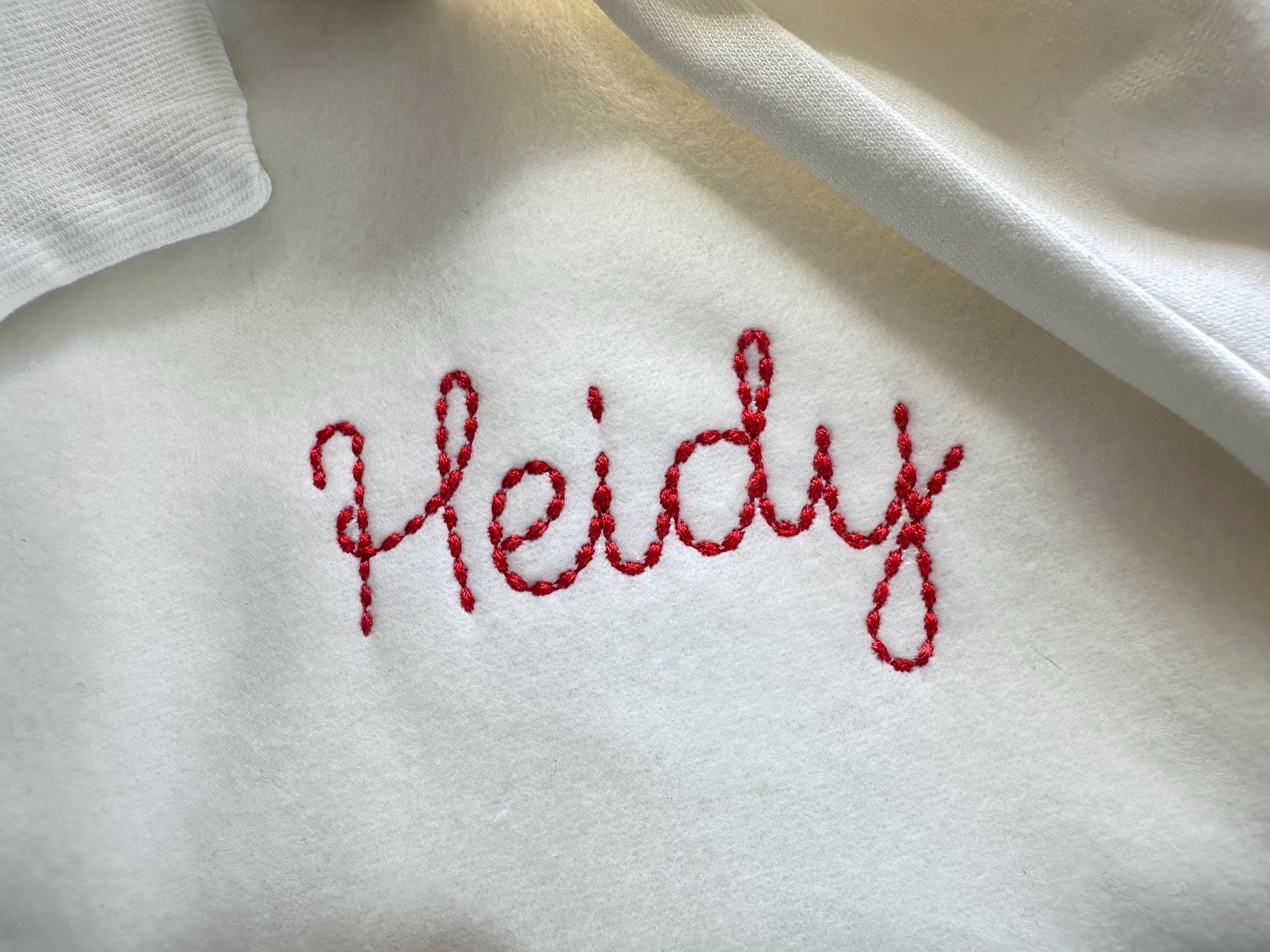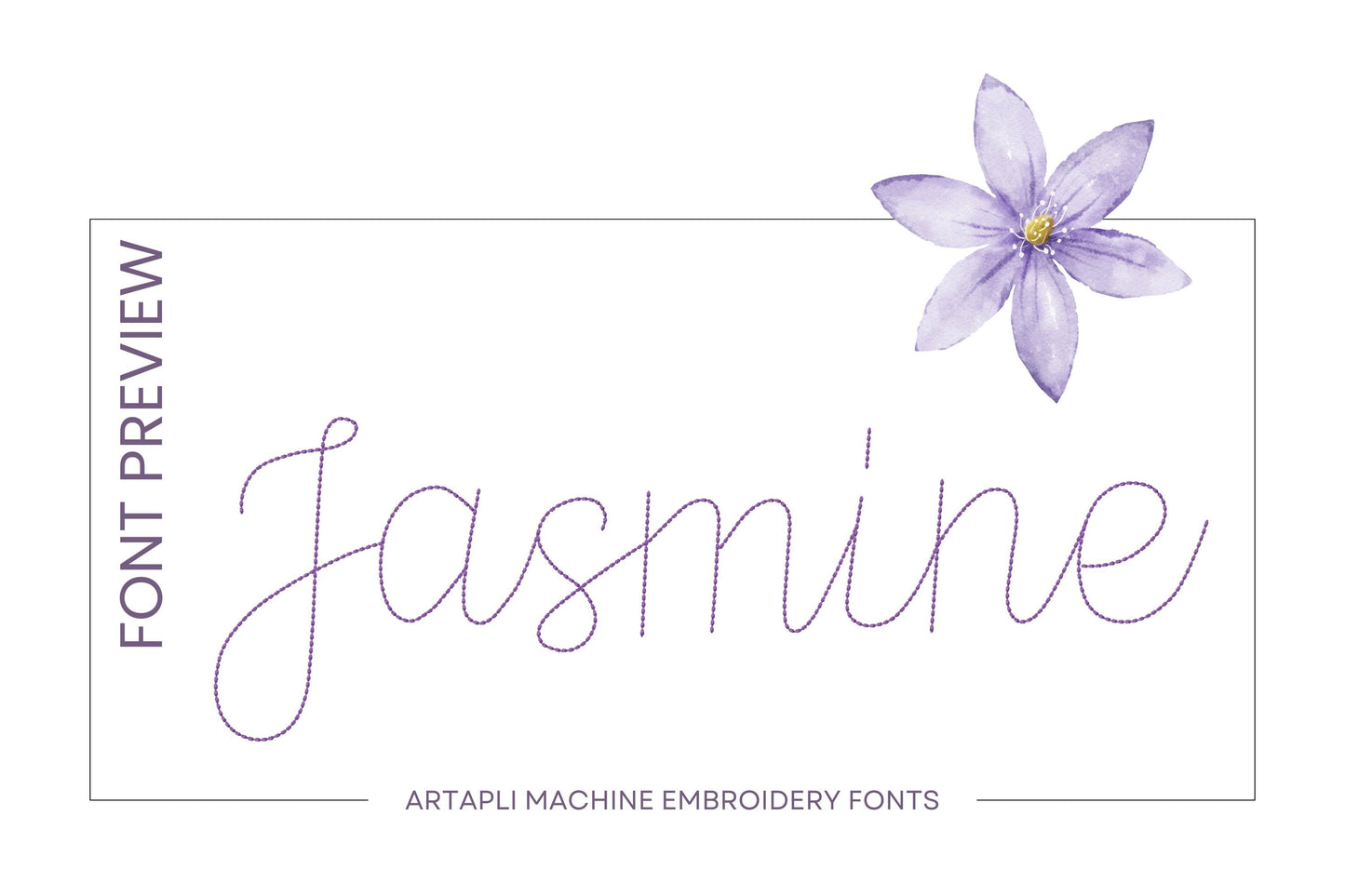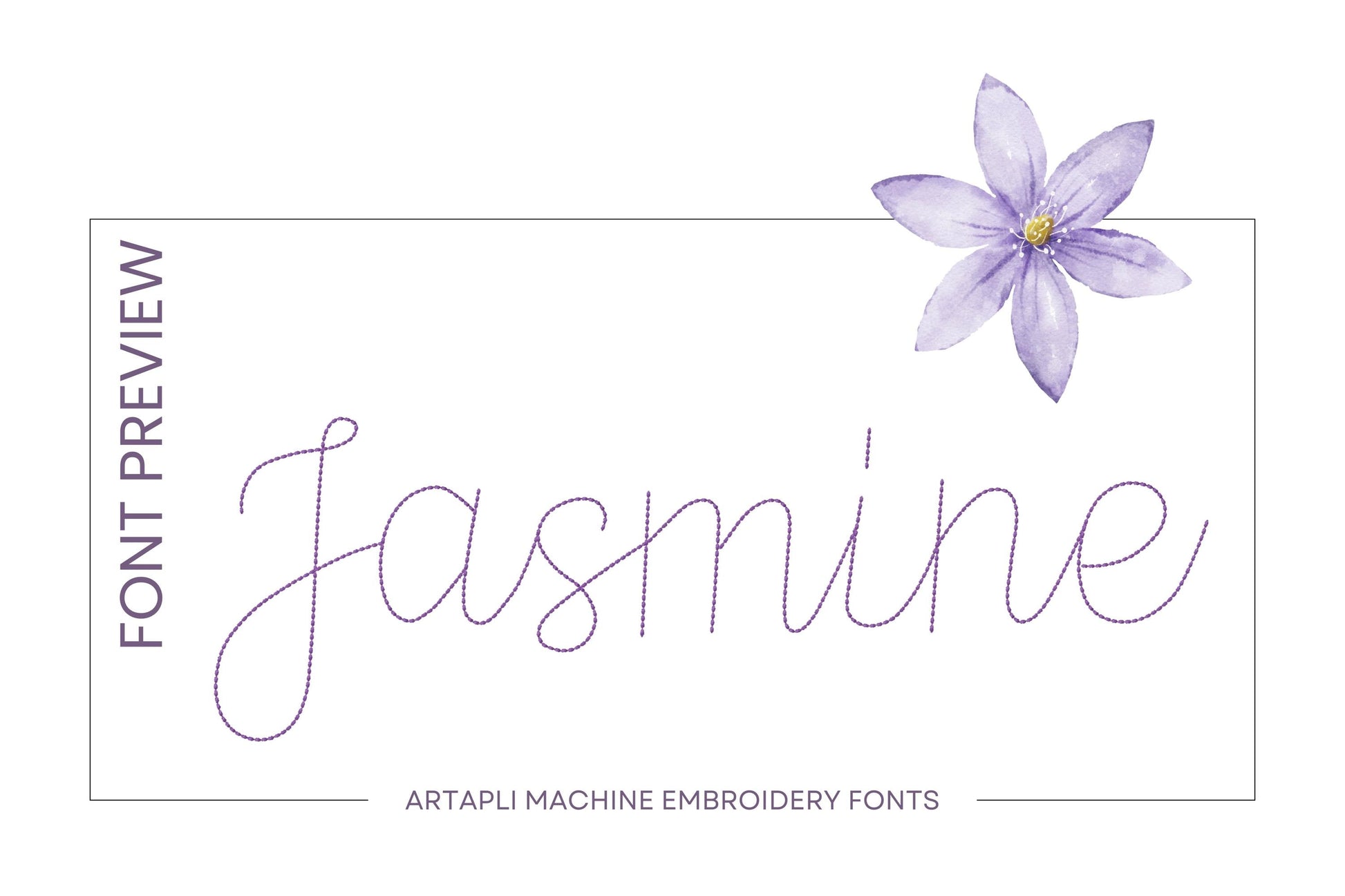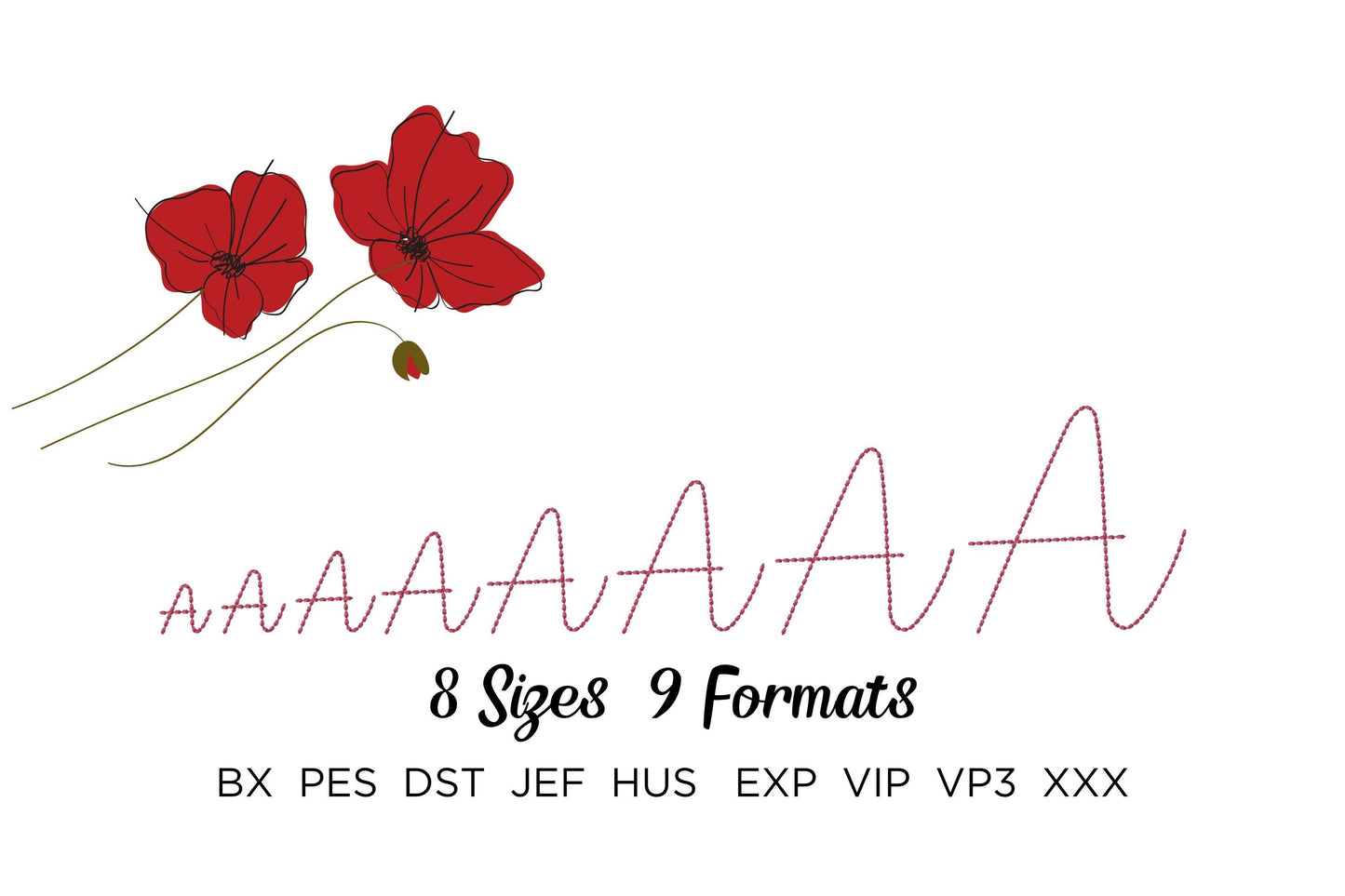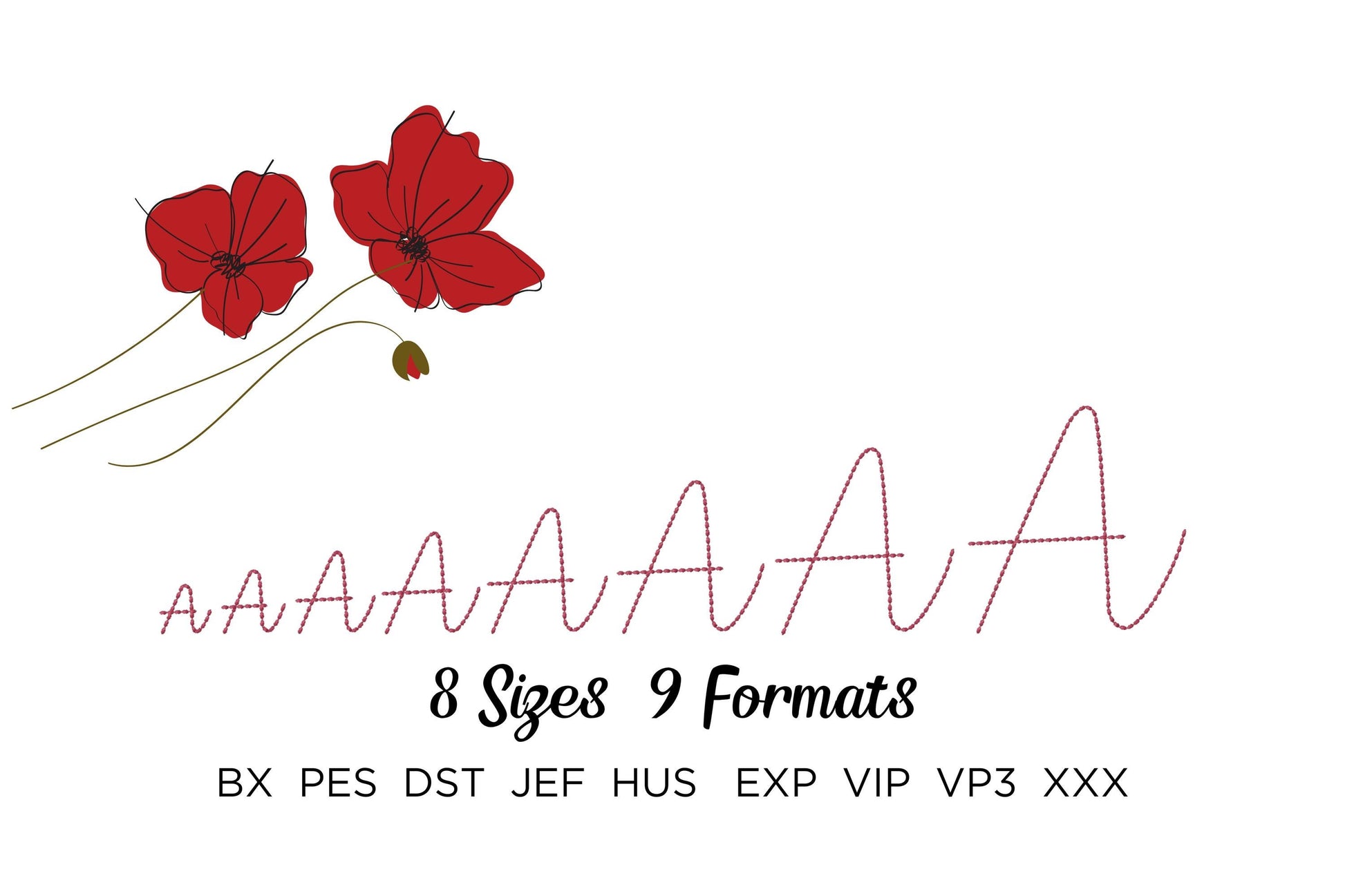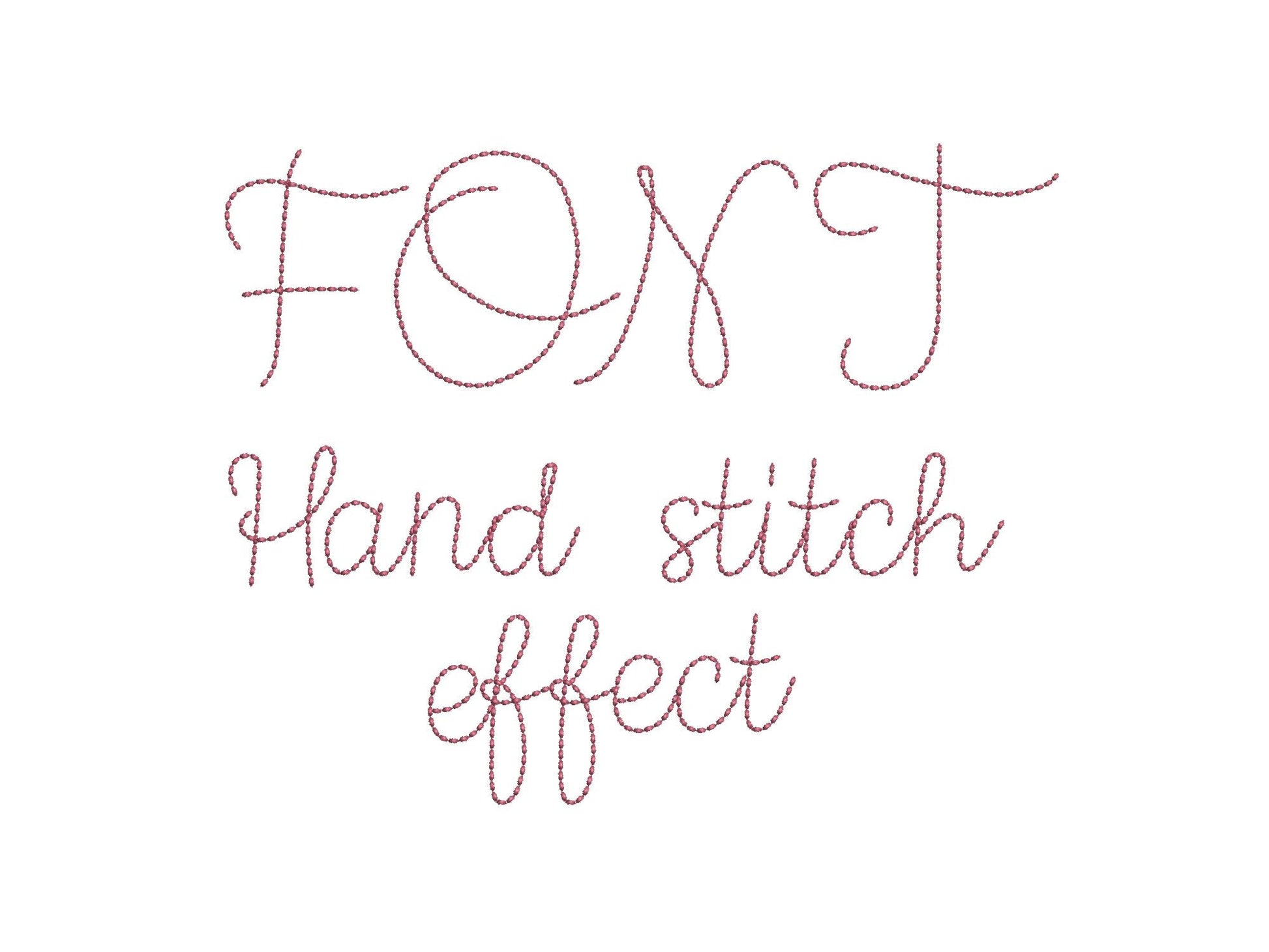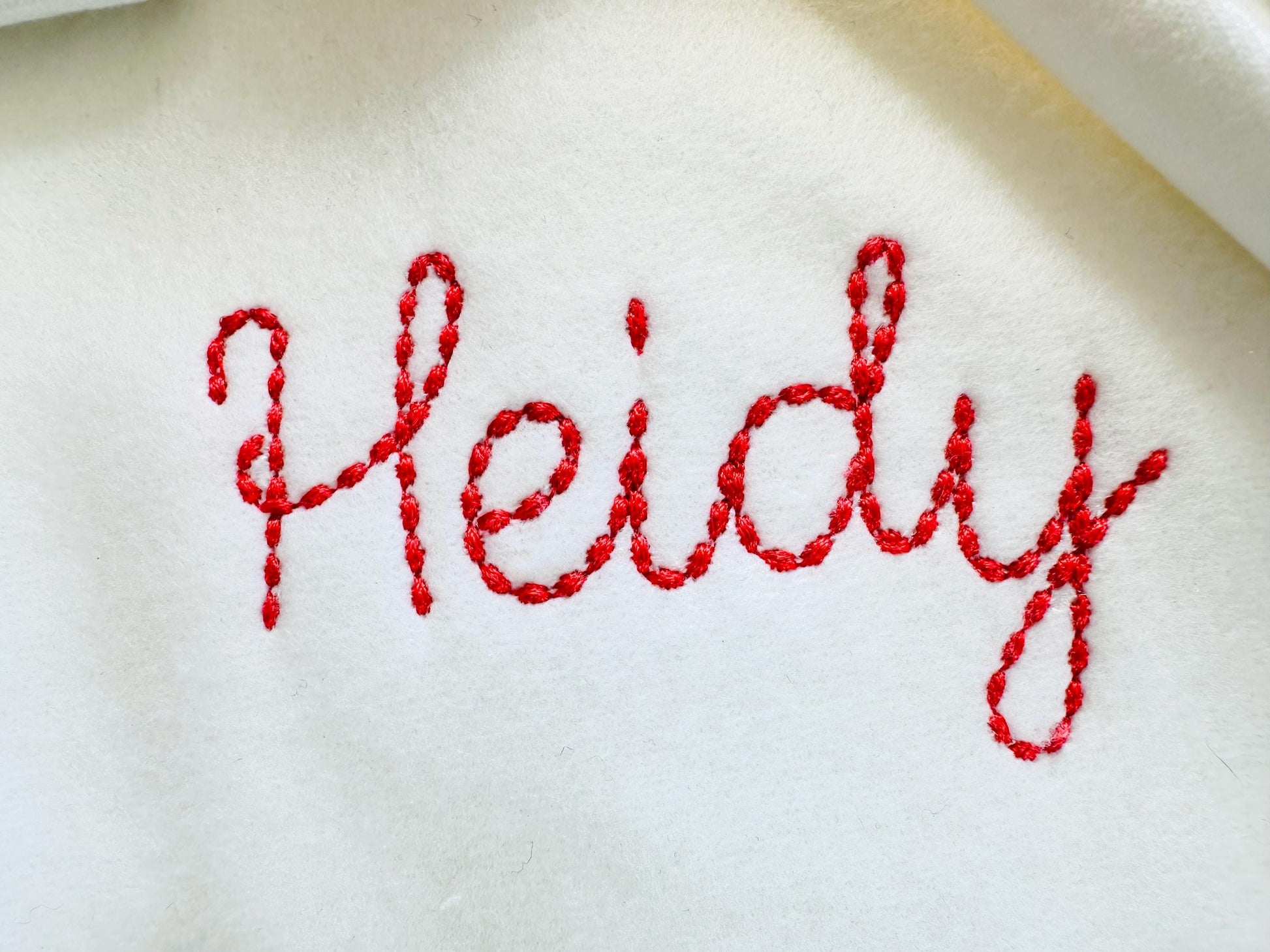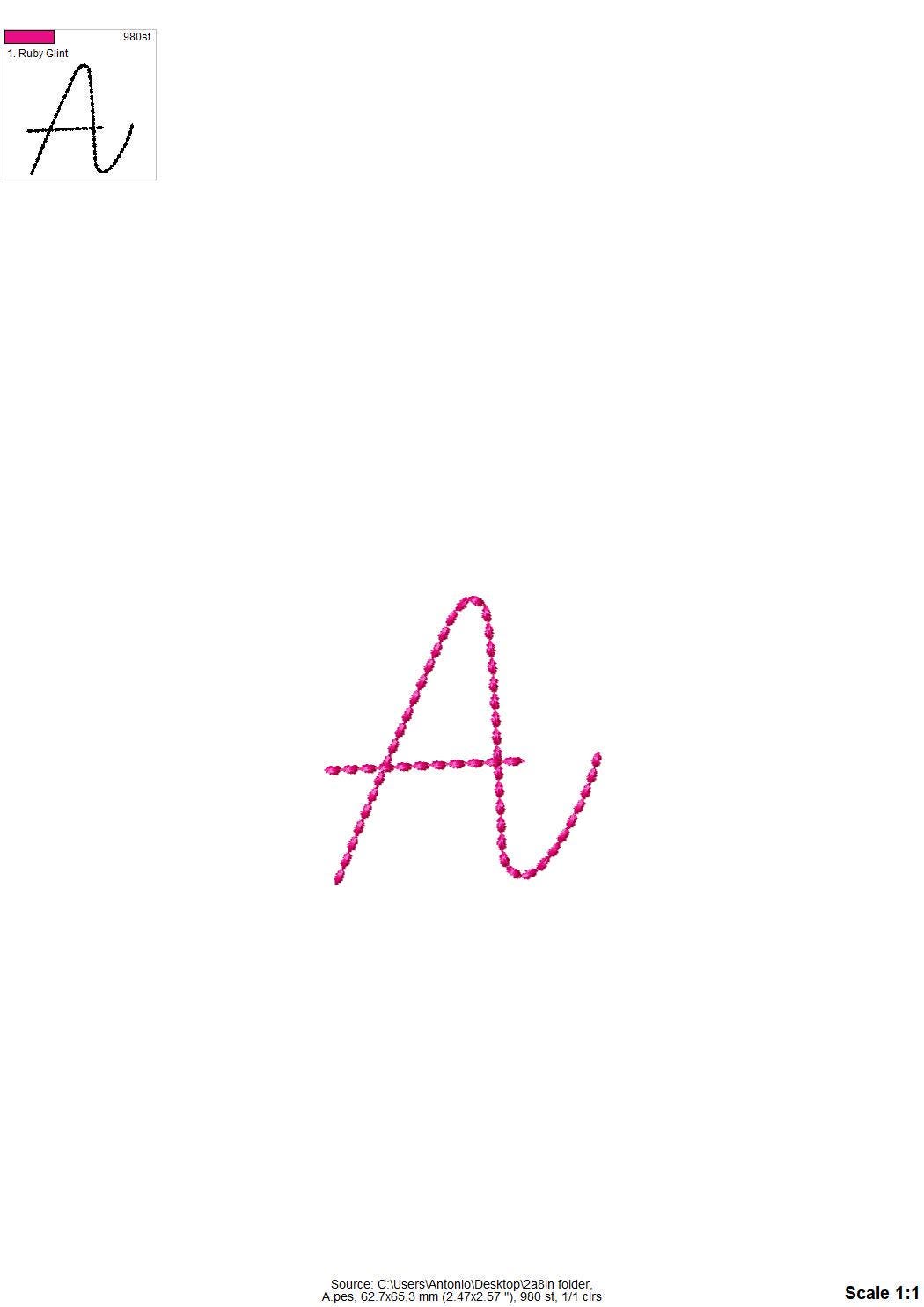
Or click to open the linkA handwritten line script with a hand-stitched look. Lovely for names, monograms and words on shirts, towels and gifts.
Uppercase and lowercase letters, numbers 0 to 9 and punctuation. Eight sizes: 1.3, 1.6, 2, 2.4, 2.8, 3.5, 4.2 and 5 inches.
- Hand stitch effect script font
- Uppercase, lowercase, numbers 0 to 9, punctuation
- 8 sizes, 1.3 to 5 in